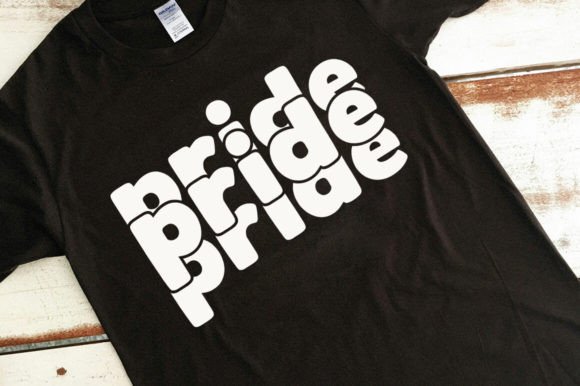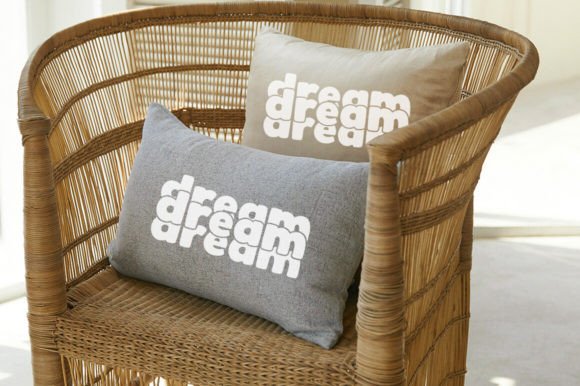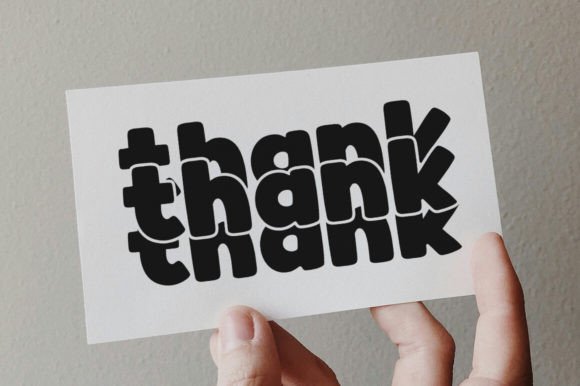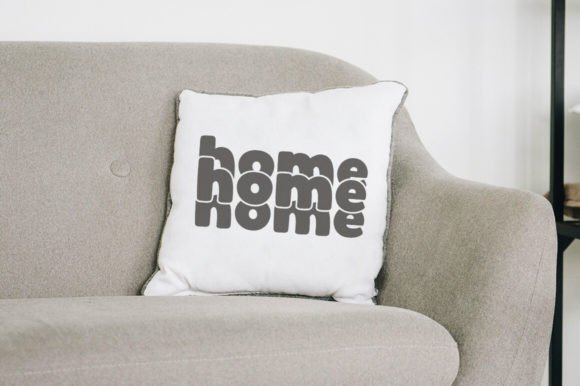
Introduction to Homin Font
Remember that moment when you’re working on a creative project, and you’re stuck trying to find the perfect font to bring your design to life? You’ve scrolled through countless options, but none seem to capture the essence of your vision. That’s where the Homin Font comes in – a chic, stacked font that’s about to revolutionize your design process.
As a designer, you know how crucial it is to have access to high-quality design resources that can elevate your work. The Homin Font is more than just a font – it’s a game-changer. With its flawless versatility, you can seamlessly integrate it into various design requisites, from branding materials to social media posts, and even quotes. Whether you’re working on a free download or a high-end commercial project, the Homin Font is sure to make a statement.
Homin Font
- High-quality, professional font ideal for creative projects and design resources.
- Features a transparent background, allowing for easy use on various backgrounds.
- Available in a single font size, with a high resolution of 300 DPI, suitable for print and digital use.
- Unique characteristics include elegant, modern, and clean lines, making it perfect for corporate and branding projects.
- Perfect for designers looking for a high-quality, free design resource for their creative projects.
Honest Review: Homin Font
As a designer, I’m always on the lookout for high-quality design resources to elevate my creative projects. The Homin Font caught my eye with its modern and sleek aesthetic. I was excited to dive in and see what it had to offer.
- ✨ The font’s clean lines and minimalistic design make it perfect for a variety of creative projects, from logos to digital interfaces.
- ✨ The font is highly legible, even at small sizes, making it ideal for use in digital displays.
- ✨ The transparent background feature allows for seamless integration with other design elements.
- ⚠️ The font’s limited character set may be a drawback for designers who require a wider range of symbols and characters.
- ⚠️ The font’s bold weight may be too overpowering for some designs, requiring careful balance and adjustment.
Overall, I’m impressed with the Homin Font‘s potential, but I do wish it had a more comprehensive character set. If you’re looking for a high-quality, modern font for your next creative project, the Homin Font is definitely worth checking out.
Homin Font
Homin Font is a versatile and high-quality design resource ideal for creative projects. With its transparent background, this font is perfect for adding a touch of elegance to your designs.
Homin Font is suitable for a variety of creative projects, including:
- Editorial and magazine design
Tips for Getting the Most Out of Homin Font
To maximize the potential of Homin Font, follow these tips:
- Use it in combination with other high-quality design resources for a cohesive look.
- Take advantage of the transparent background to create unique and eye-catching designs.
When to use: Open Sans is ideal for body text in brochures, magazines, and websites. It’s also a great choice for titles and headings in creative projects that require a clean and minimalist design.
Comparison to Homin Font: Open Sans has a more modern and minimalist design compared to Homin Font, which has a more rounded and playful feel. Open Sans is also more versatile and can be used in a wider range of design contexts.
Lato is a beautiful, high-quality sans-serif font that is perfect for designers who need a elegant and sophisticated design resource. It’s free to download and can be easily customized for a transparent background. Lato is a great alternative to Homin Font for designers who need a font that exudes luxury and refinement.